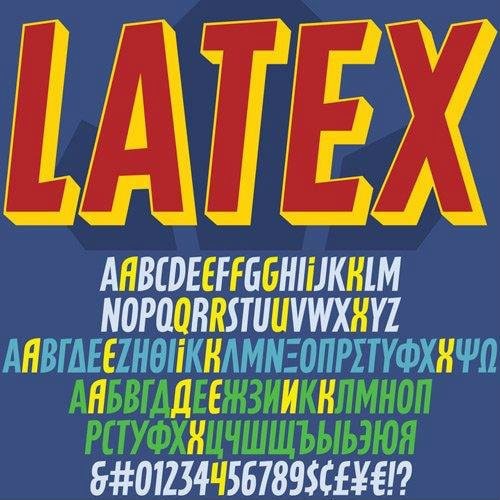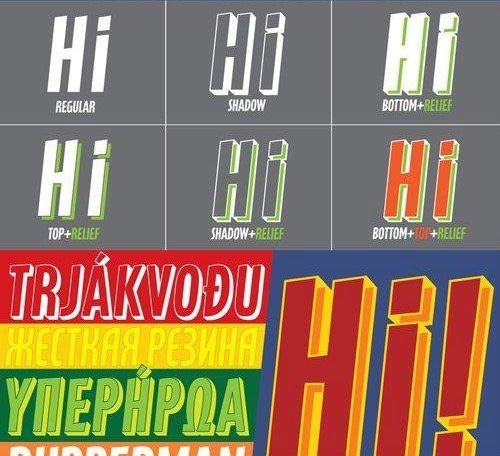
Latex Font was initially a single multi-script all-cap font commissioned in 2012 by a company we can’t name, to market a billion-dollar superhero movie we also can’t name. A year later the commission grew to include a shaded variant and a set of DIY-like fonts, with different layering possibilities for dimensional manipulation.
Each of the five Latex fonts come with a character set of over 600 glyphs, supporting the vast majority of Latin languages, as well as Cyrillic and Greek alphabets. Lots of stylistic alternates are also included, including some for Cyrillic and Greek.